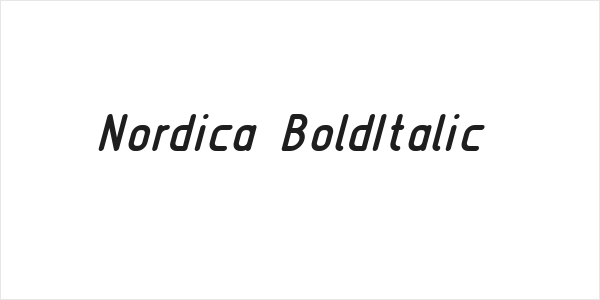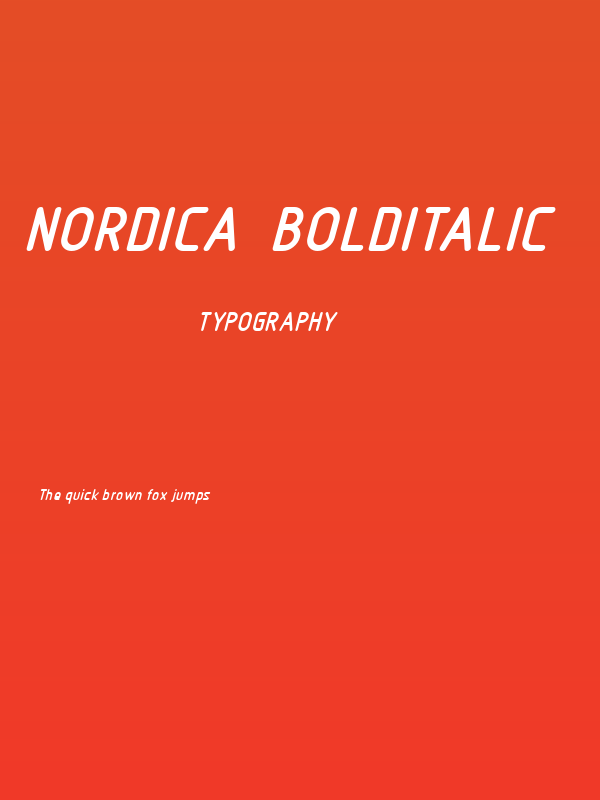
Nordica BoldItalic Font
Nordica BoldItalic Description
This font features a modern and sleek design with a bold and italicized style. The characters are slightly condensed, giving it a compact appearance while maintaining readability. The strokes are consistent in thickness, providing a uniform look across all characters. The rounded edges and smooth curves contribute to its contemporary feel, making it suitable for various digital and print applications. The font includes a full set of uppercase and lowercase letters, numbers, and a range of special characters, ensuring versatility in use.
Use CaseHeadlines, Logos, Digital Media
Proposed ProjectsIdeal for branding, digital media, advertising, and modern editorial design.